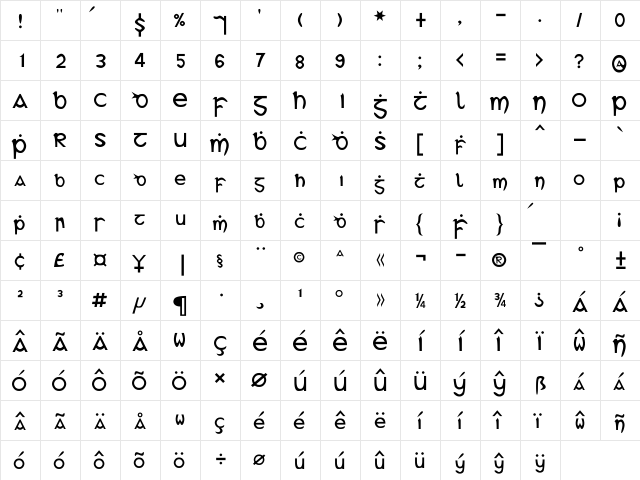
Gael AX Regular Font Preview
Gael AX Regular
Gael AX Regular Font Details
Design Context for Gael AX Typeface
Gael AX takes a measured approach to typography — its balanced proportions and neutral character make it a reliable workhorse for both digital and print work.